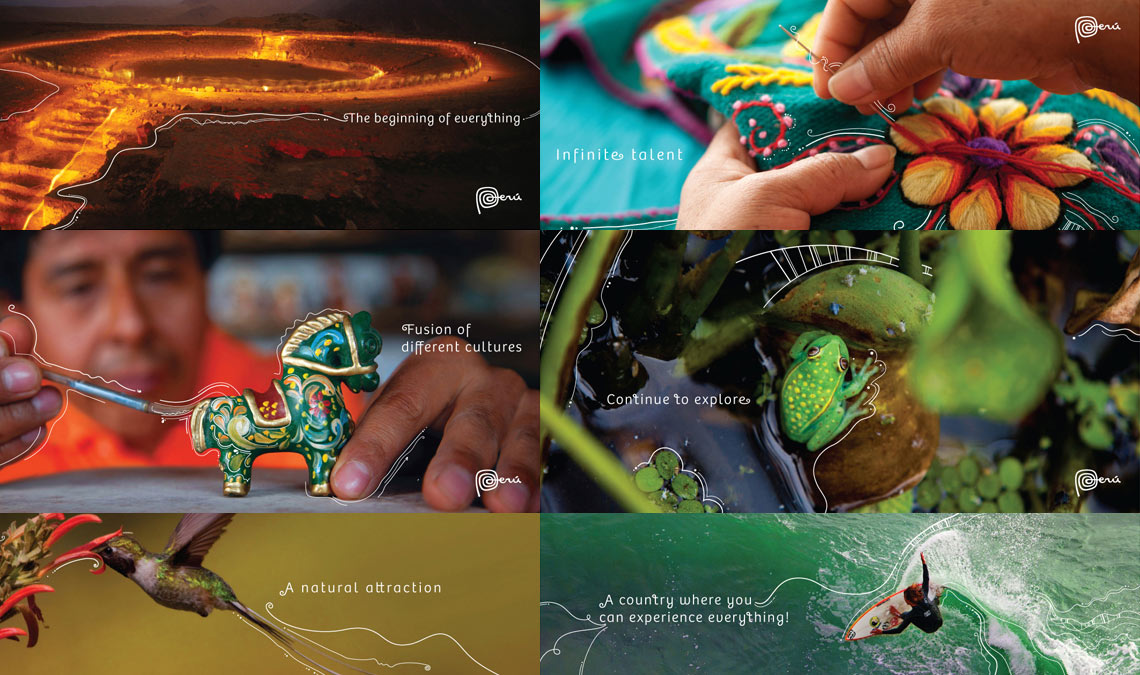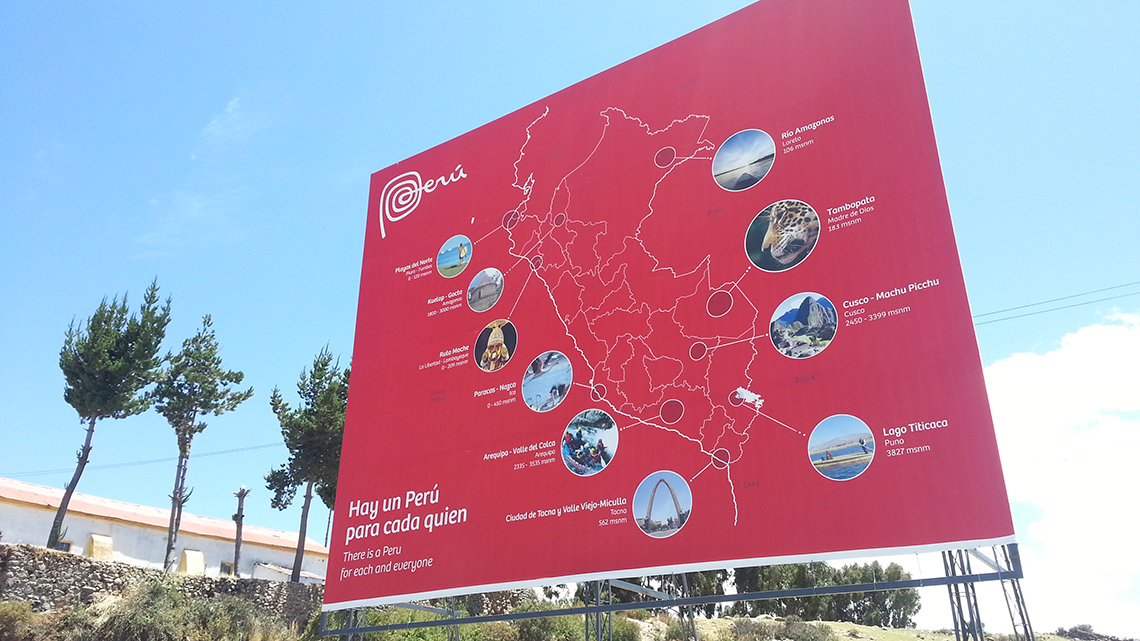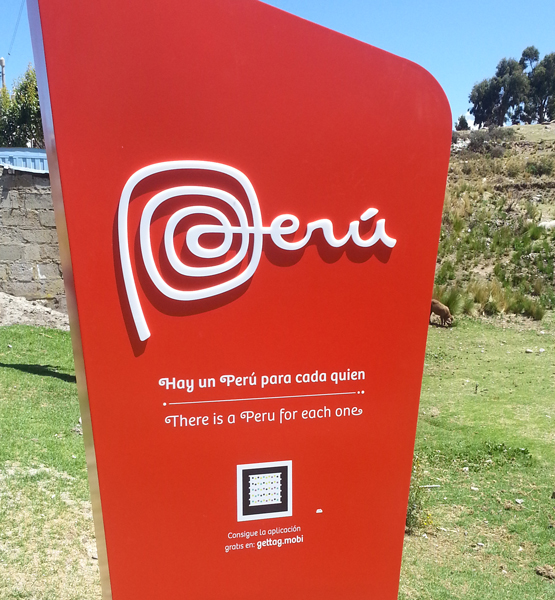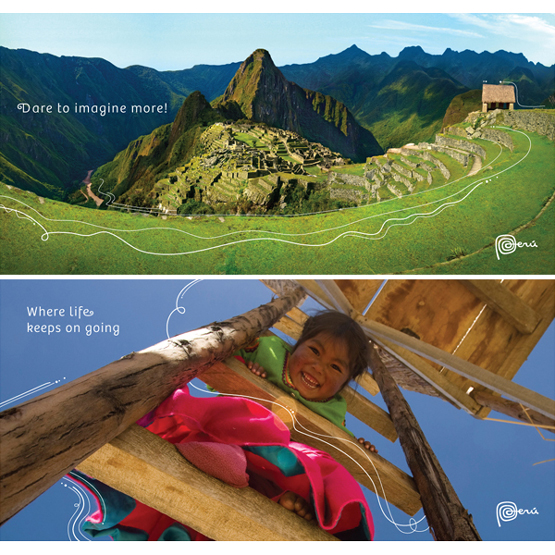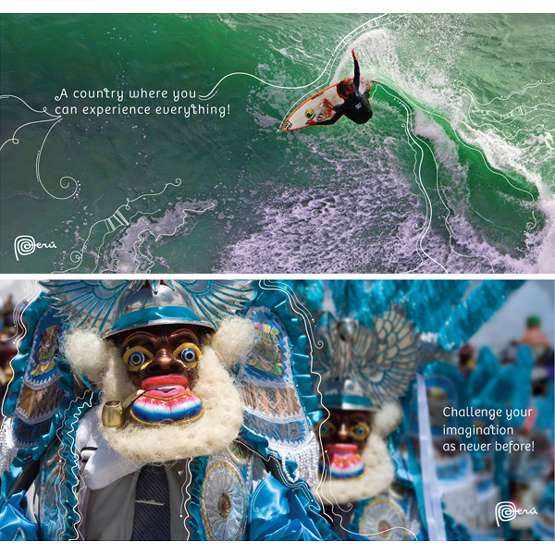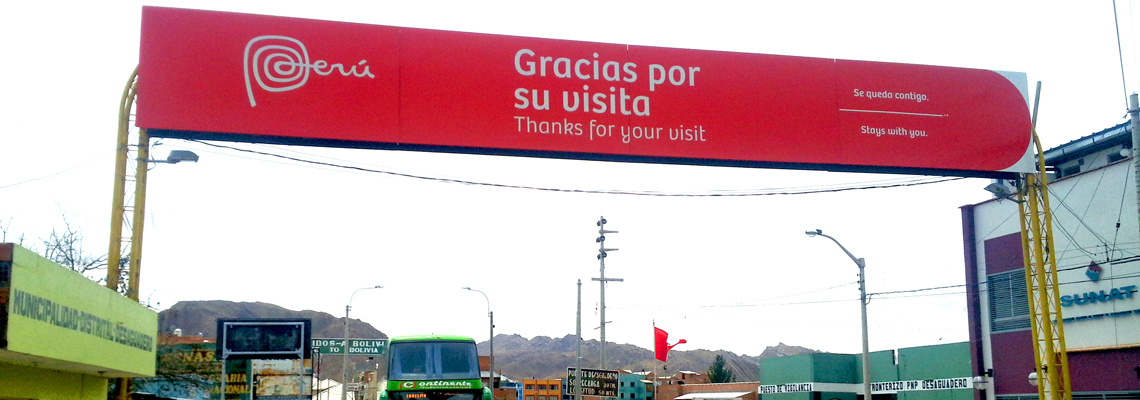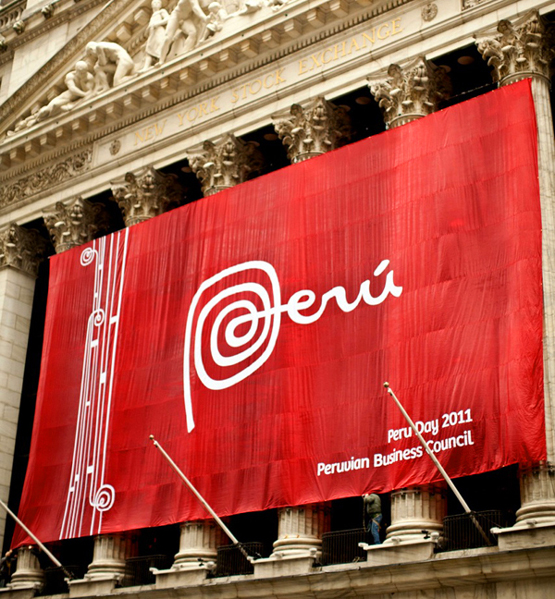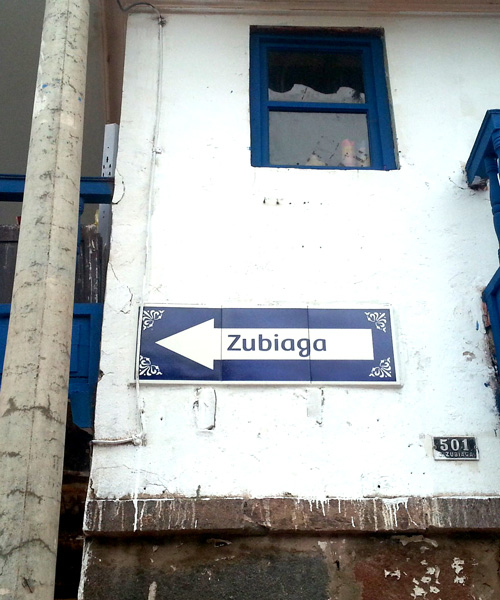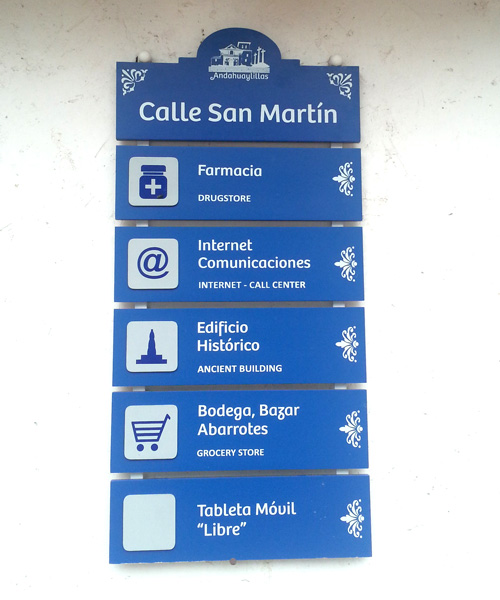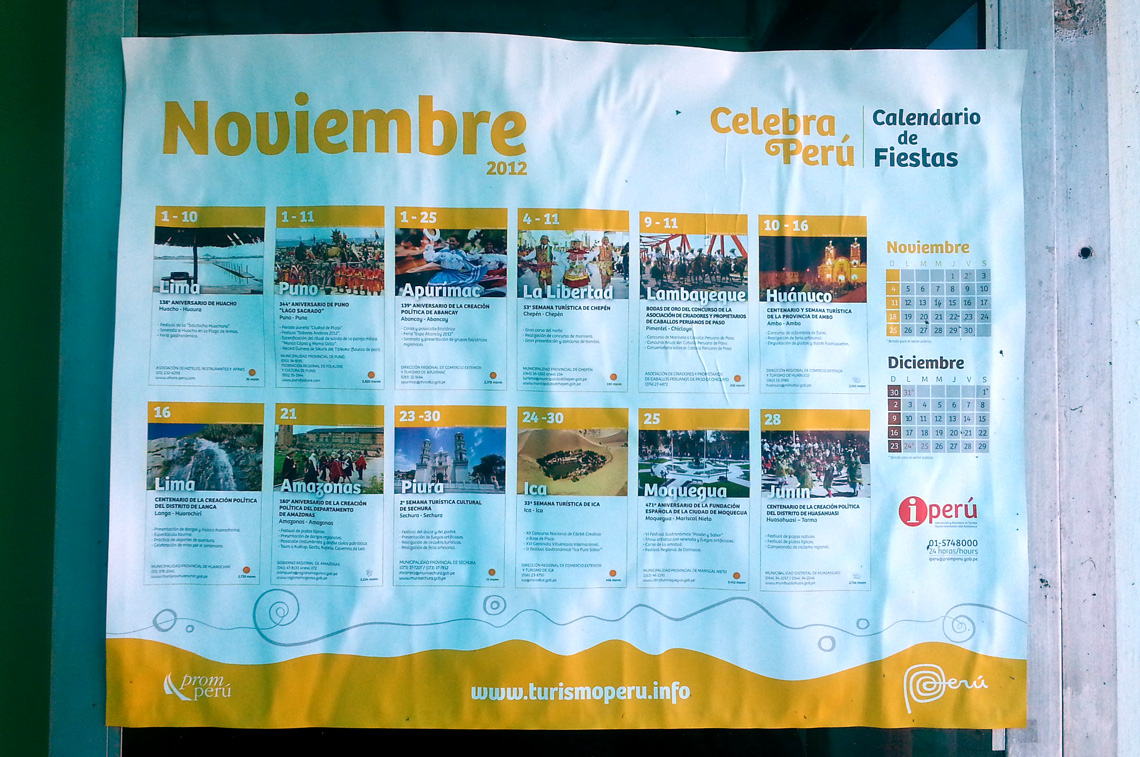
Bree Perú
Design studio FutureBrand commissioned this customized version of our successful type family Bree. The objective was to introduce a series of changes that would help connect the typeface to the new logotype of the country brand for Perú, which is based on drawings from the Nazca lines.
The Bree Perú custom made font family
the magic of opentype
The approved design reinforces the characteristic feature of the logo: the spiral. However, the resulting shapes could not appear too frequently as they have very strong impact on the resulting text. The capabilities embodied in the font format OpenType allowed for a simple solution. The six resulting fonts use different OpenType features to allow users to activate and deactivate the new ornamental shapes by just one click of the mouse. As a consequence, graphic designers have a quick and versatile shortcut to the iterative process of testing these shapes on current DTP applications.
The changes made include:
1) Characters that were simply redesigned to match the client’s brief.
2) Initial and final shapes that match the branding and can be accessed through stylistic alternates.
3) Alternate letterforms that are engineered for better performance in text sizes or continuous reading.
4) Optional ligature for letter pair ‘Qu’, which is highly common in Spanish language.
5) Series of initial and final ornaments that can be typed through math characters and then accessed by means of the
contextual alternates OpenType feature.